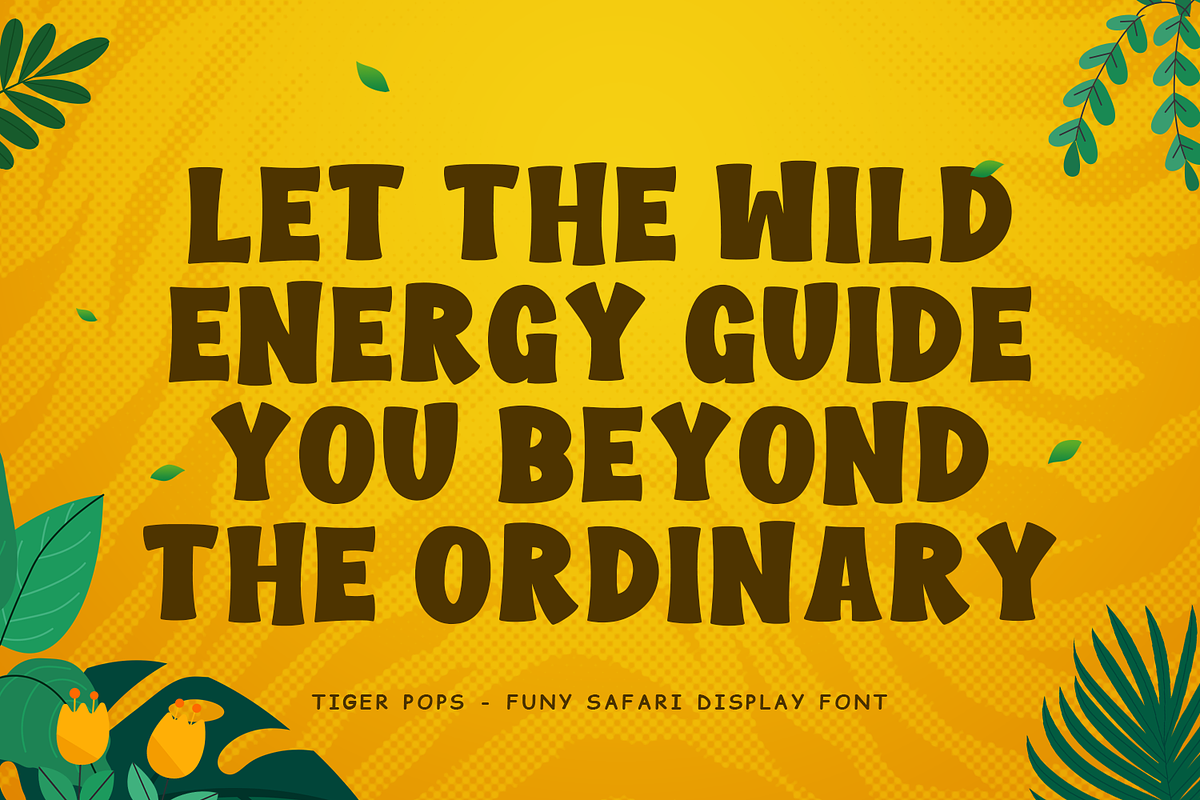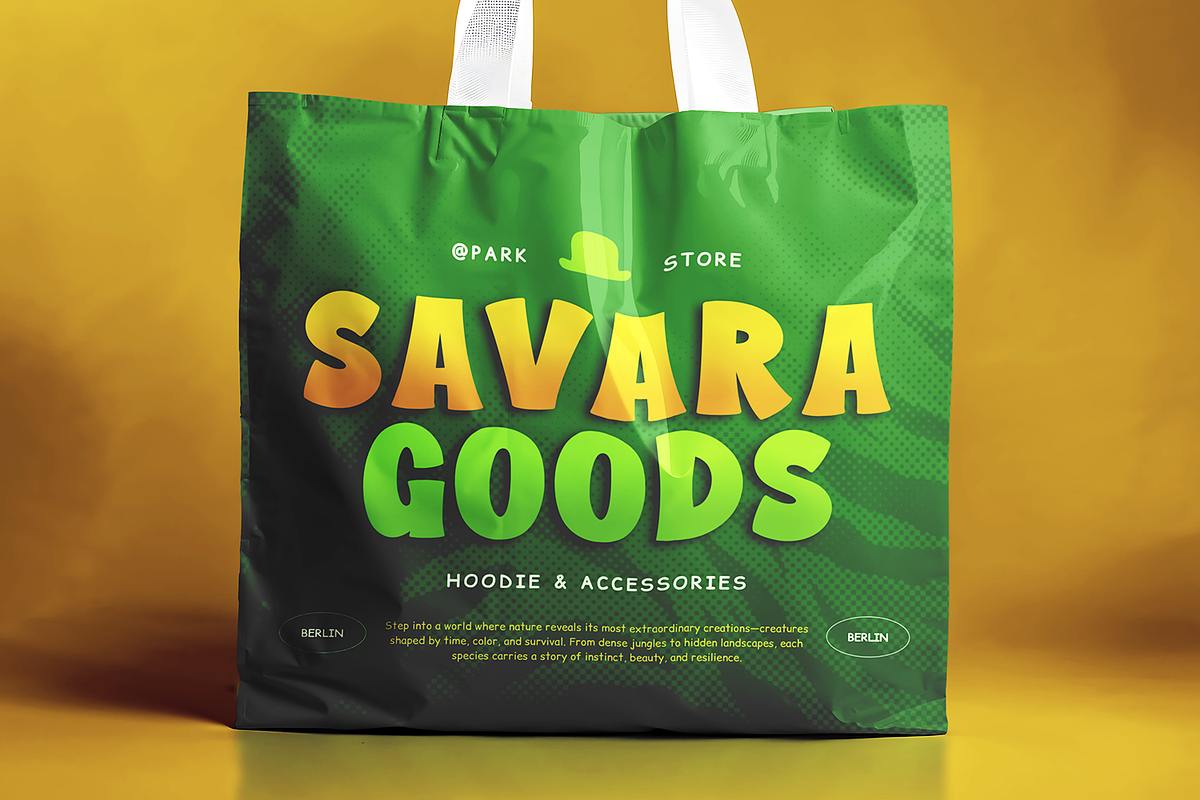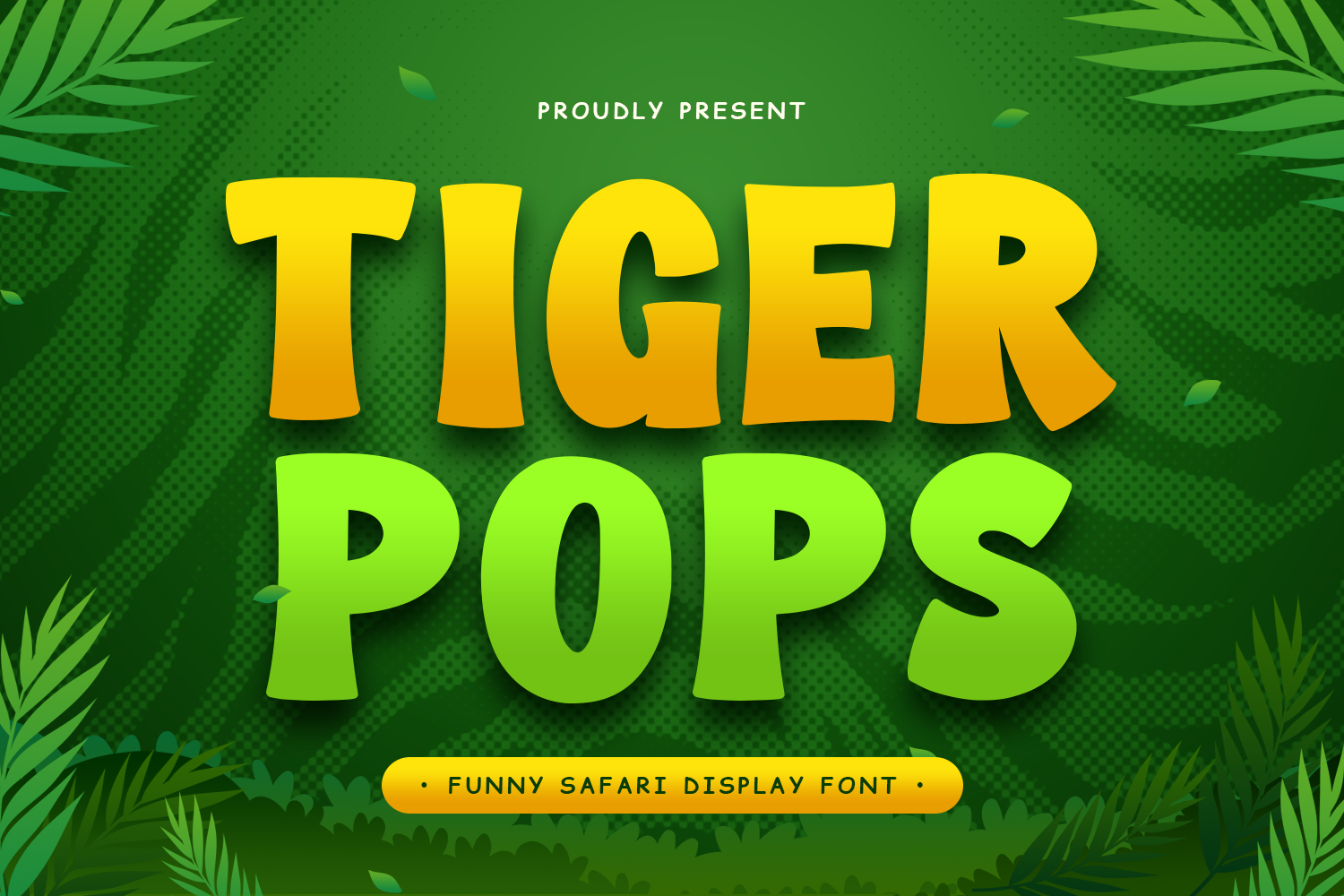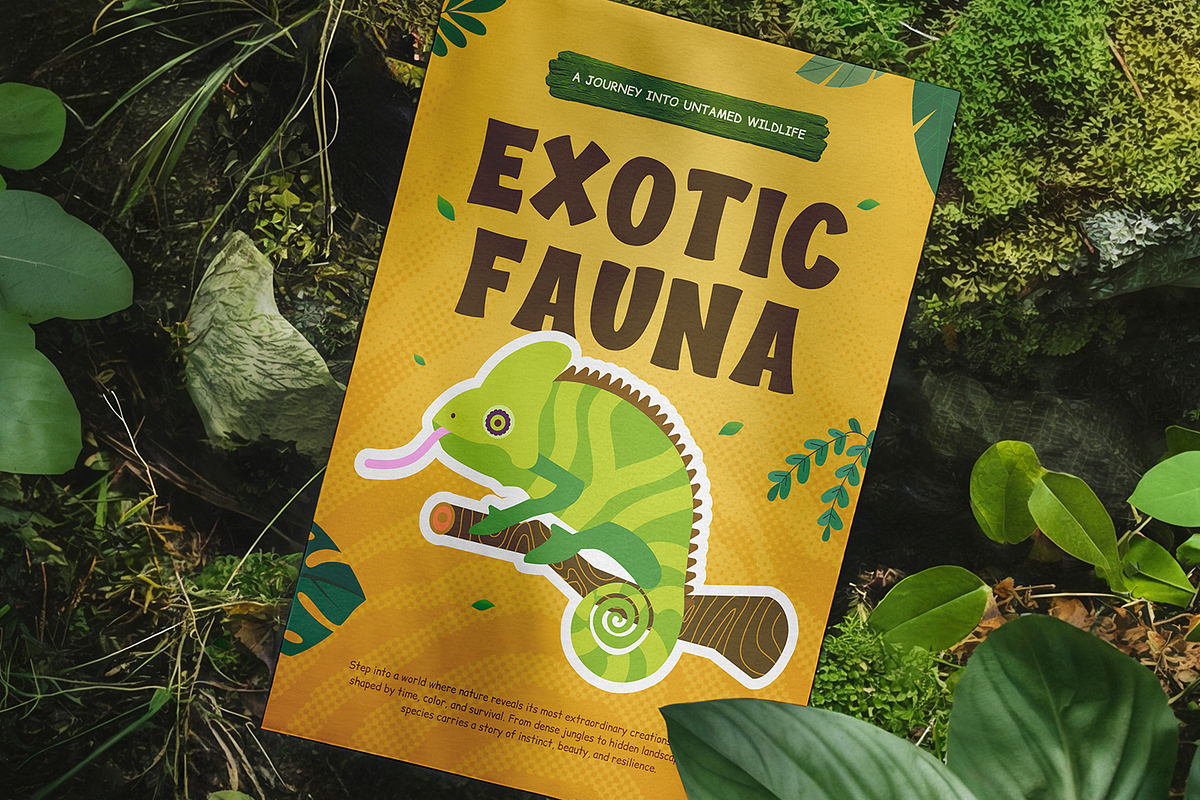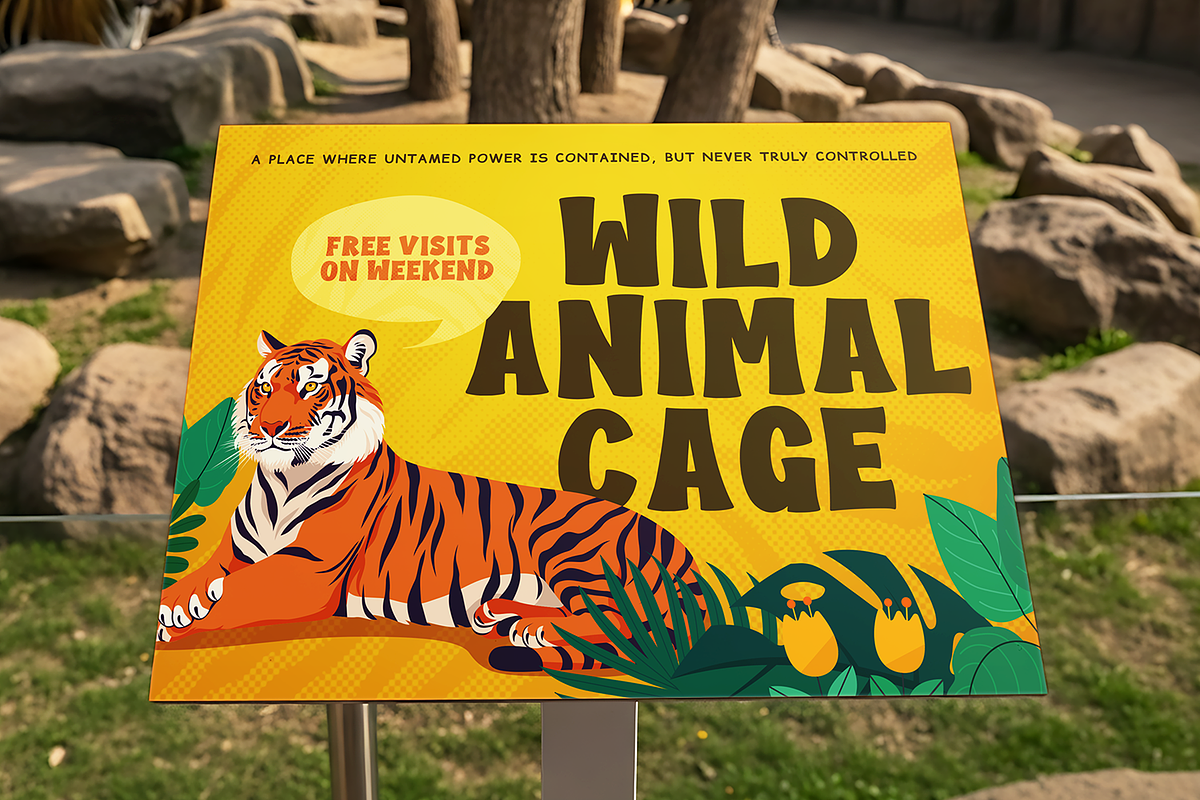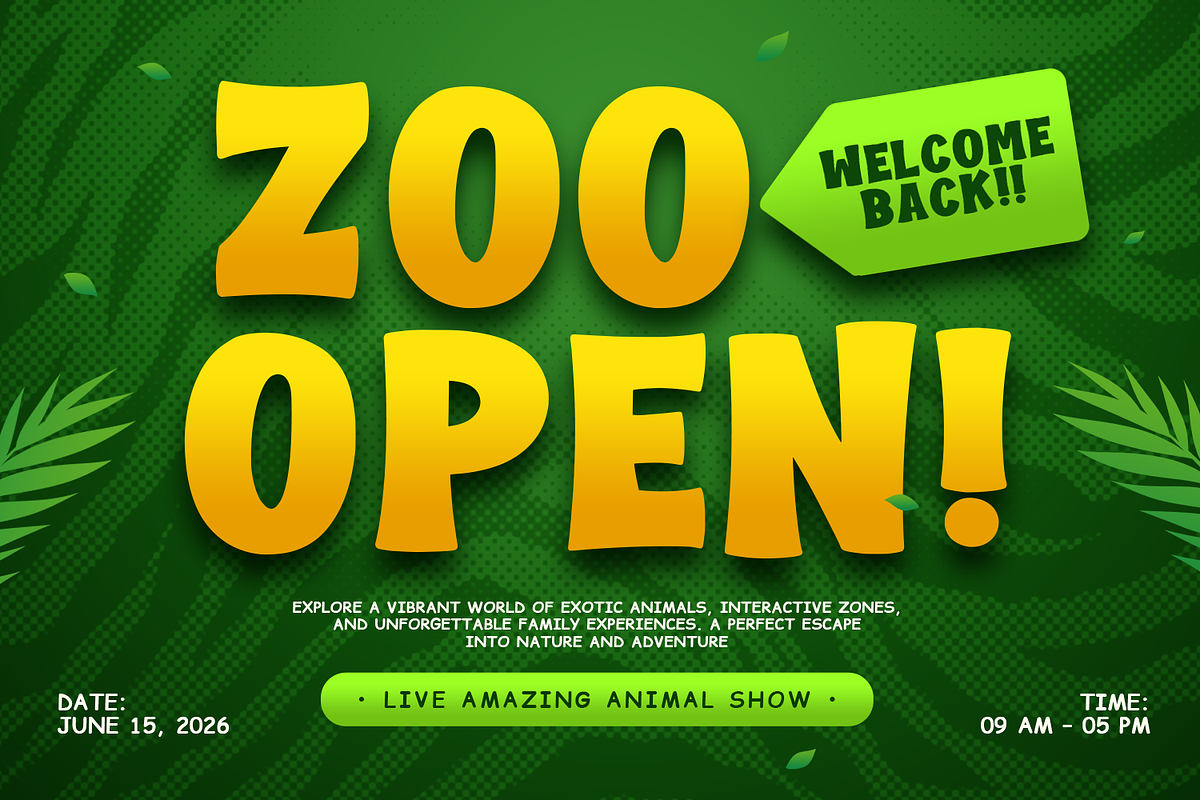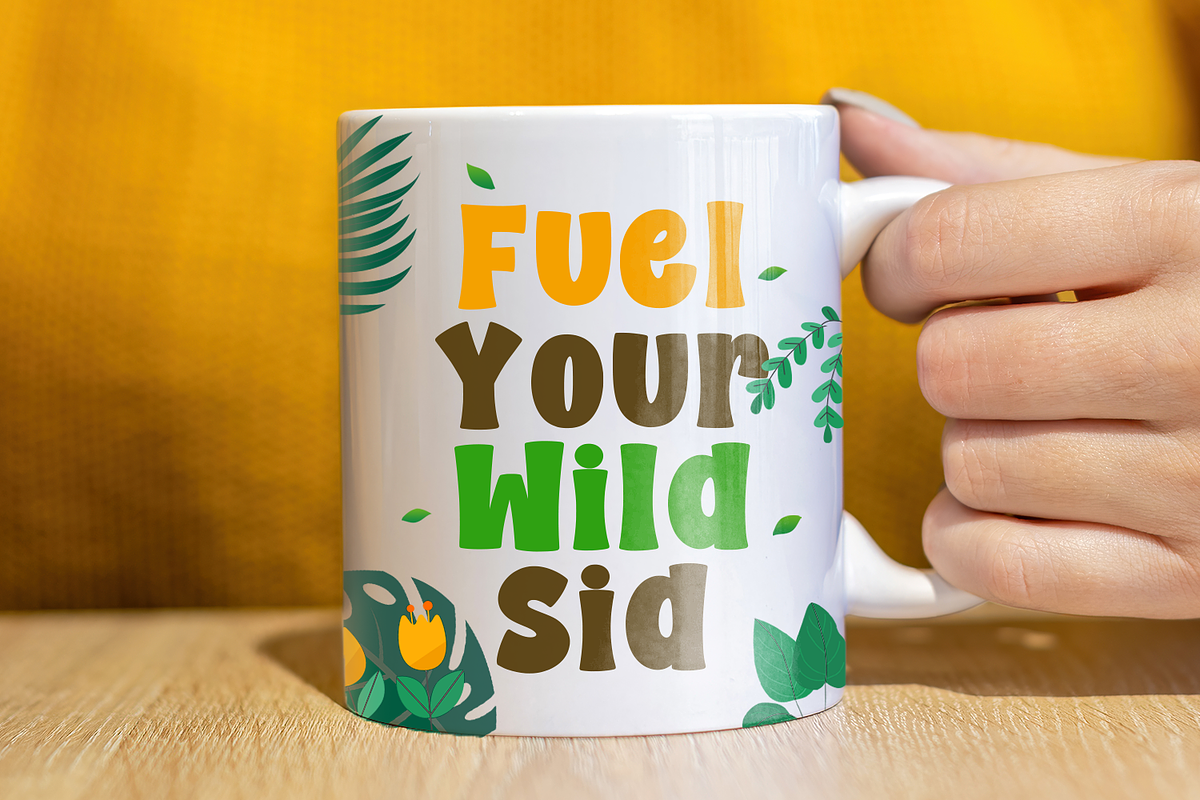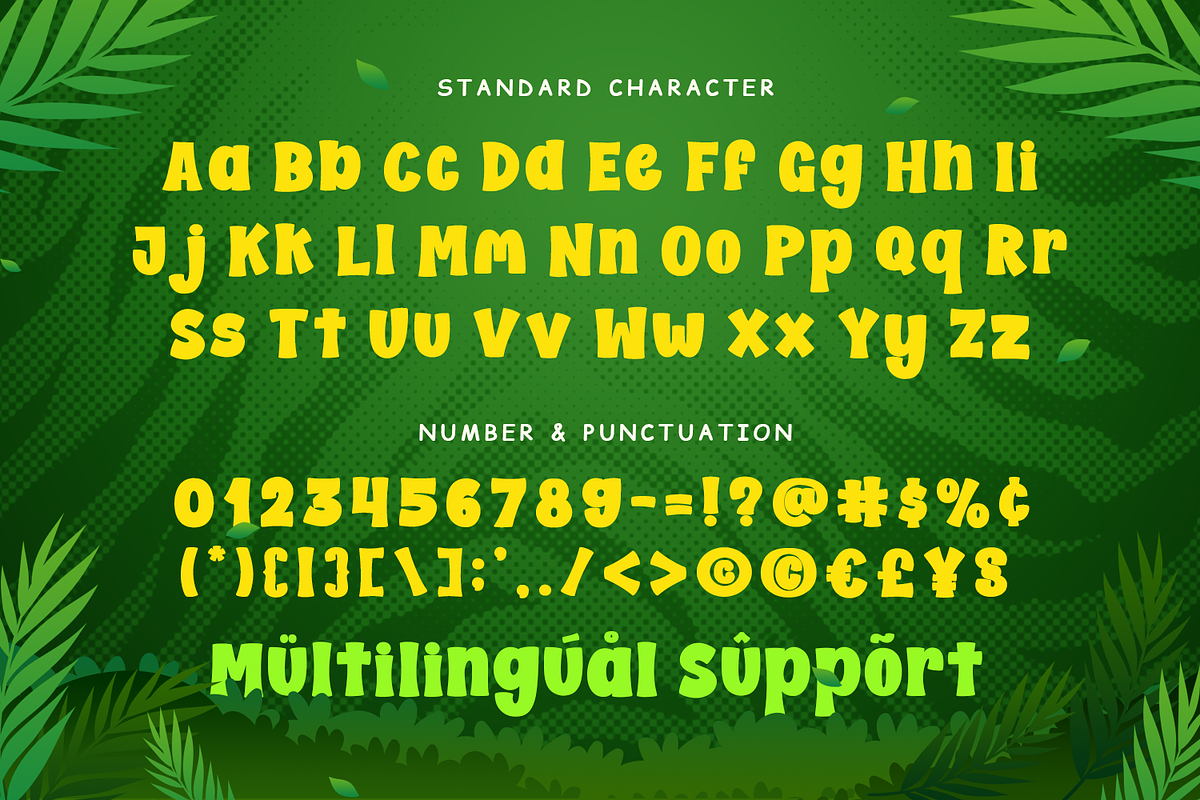
TIGER POPS - Food Font
Tiger Pops – Fun Food Font
Tiger Pops is a bold and playful food font designed to bring excitement, sweetness, and energetic vibes into your creative projects. Inspired by colorful snacks, candy treats, and fun food branding, this font delivers a cheerful personality that instantly makes every design feel more lively, tasty, and eye-catching.
Crafted with chunky playful letterforms and smooth curves, Tiger Pops combines a modern fun style with excellent readability. Its vibrant appearance creates a joyful and friendly atmosphere, making it perfect for snack packaging, beverage branding, kids’ food products, cafés, and dessert promotions.
This font is ideal for food-related projects such as candy packaging, popcorn branding, ice cream shops, bakery menus, restaurant promotions, and social media content. The bold and playful typography helps products stand out while creating a delicious and memorable visual identity.
Tiger Pops works beautifully for logos, posters, stickers, mugs, menus, banners, and promotional materials. Its energetic style adds personality and fun, helping your designs feel more engaging and visually appealing for both kids and families.
Playful Food Style
Bold letterforms inspired by snacks, candy, and fun treats.
Sweet & Energetic
Designed to create cheerful and lively food-themed designs.
Friendly & Readable
Easy to read while maintaining a cute decorative personality.
Versatile Food Font
Perfect for branding, packaging, menus, and promotions.
Includes extended multilingual characters for global creative use.
• Snack & Candy Packaging
• Ice Cream & Dessert Branding
• Café & Restaurant Menus
• Food Posters & Promotions
• Kids Food Products
• Social Media Graphics
• Stickers & Merchandise
• Fun & Colorful Creative Designs
Create Sweet & Playful Food Designs
If you are looking for a font that combines bold playful charm, colorful food vibes, and cheerful energy, Tiger Pops is the perfect choice. This font helps you create designs that feel fun, delicious, and unforgettable.